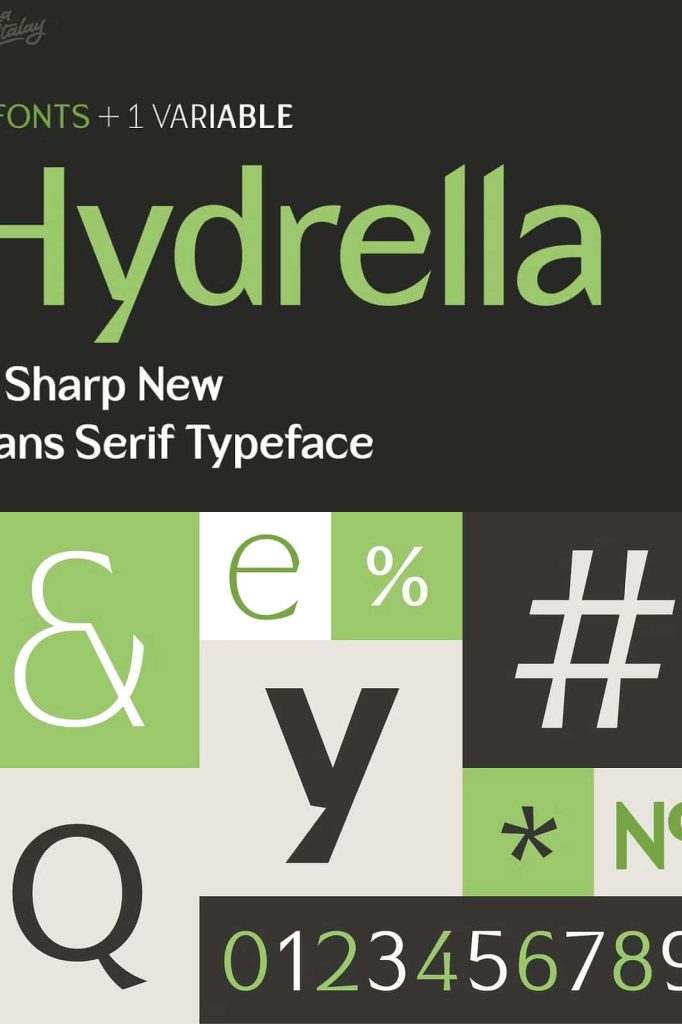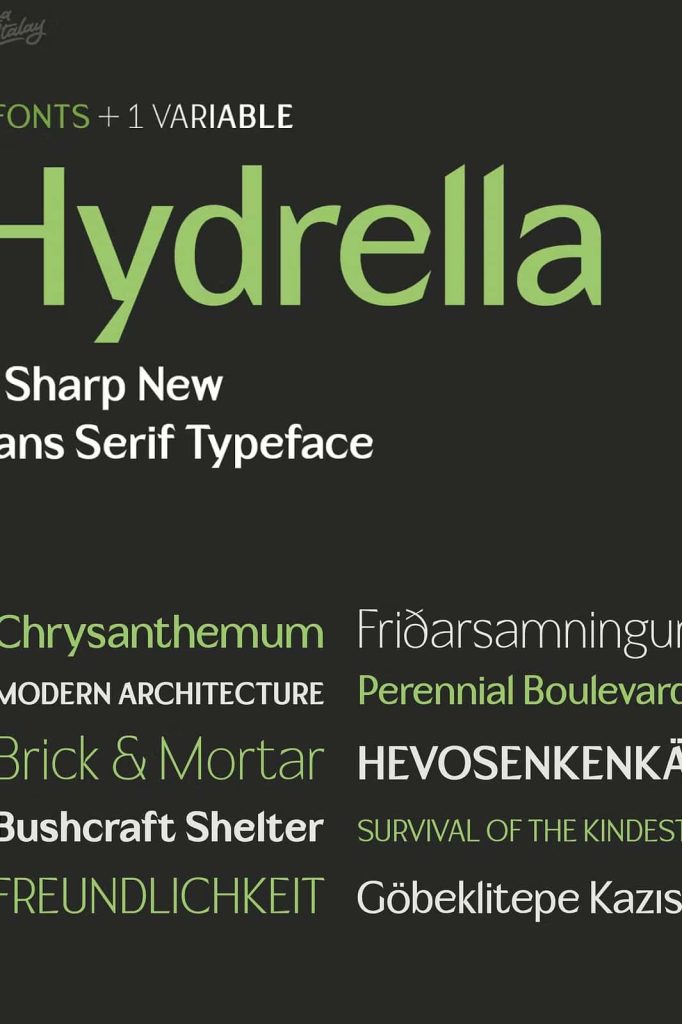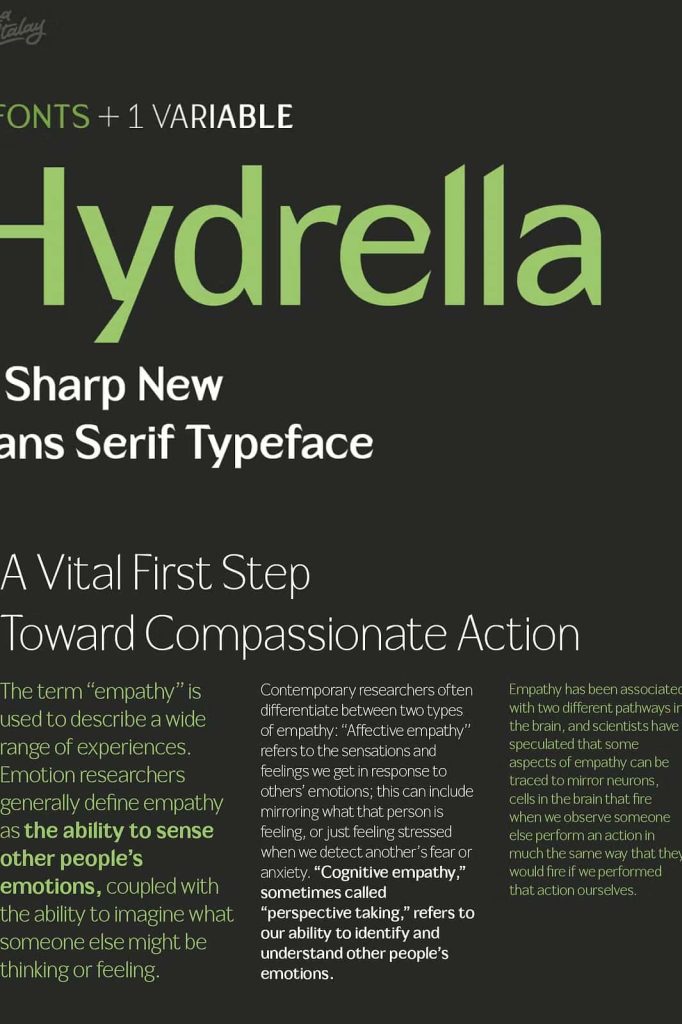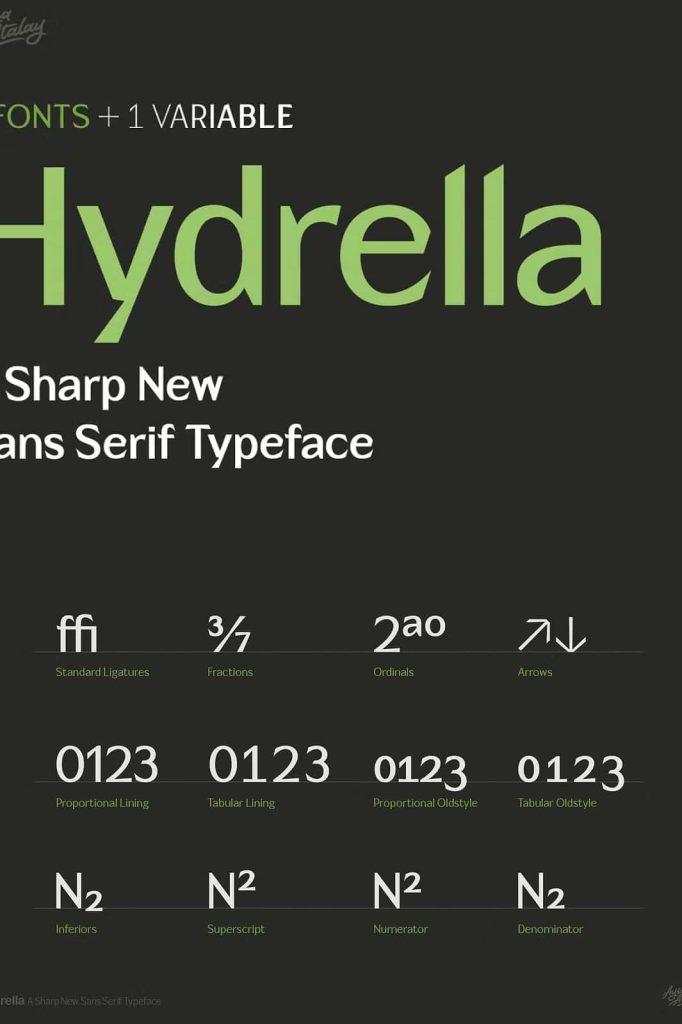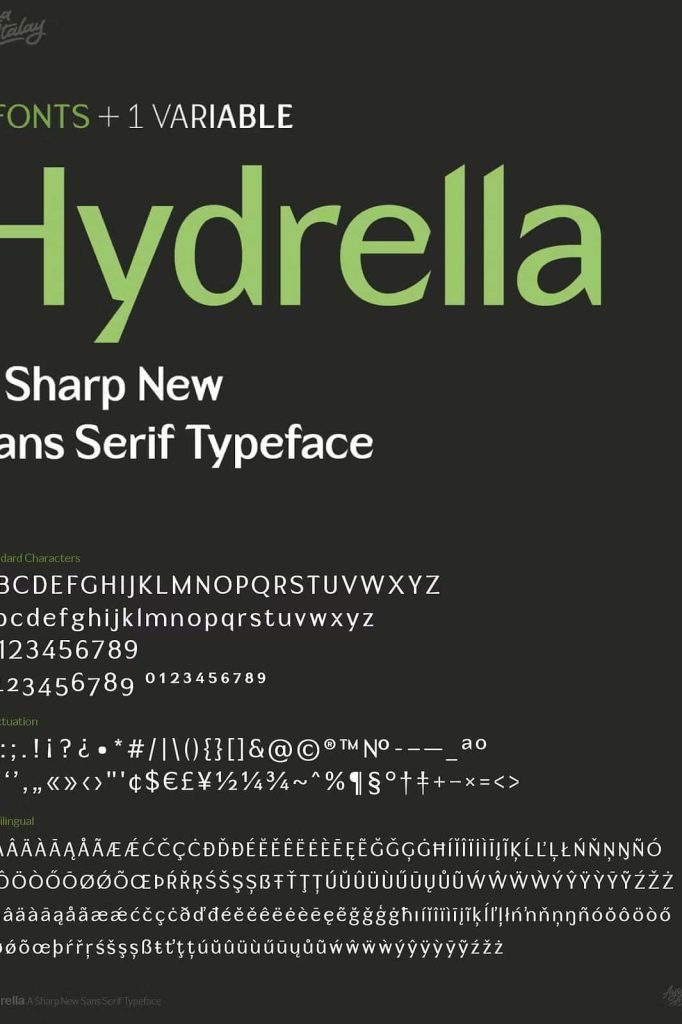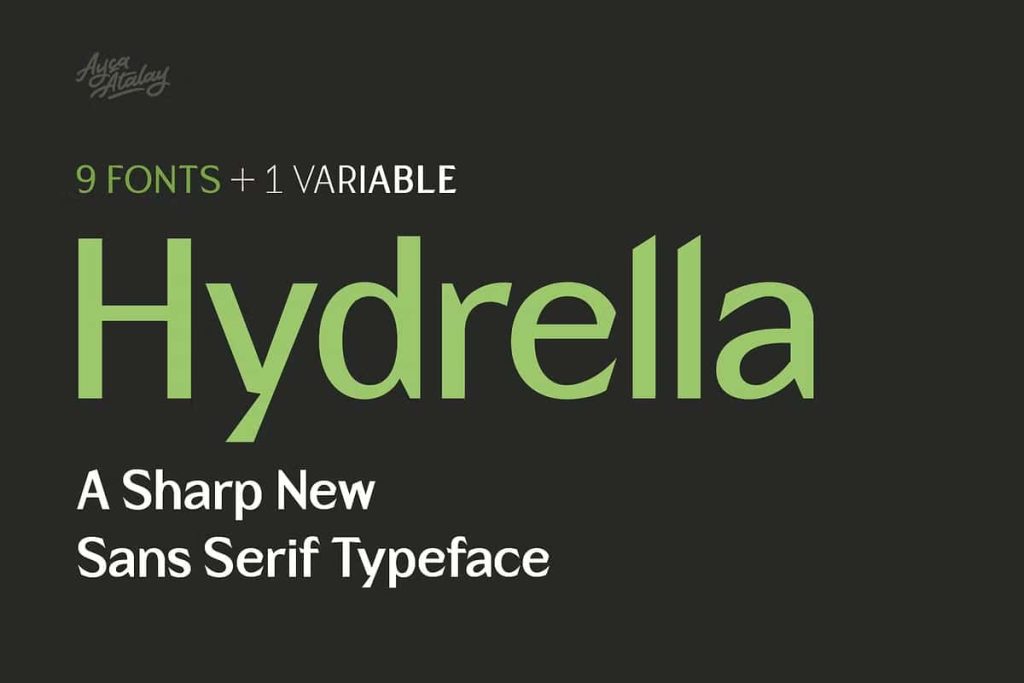
Hydrella | A Sharp New SansleastedDecember 28, 2024Fonts Hydrella is a modern sans serif with sharp, unique features and moderately high contrast. Download